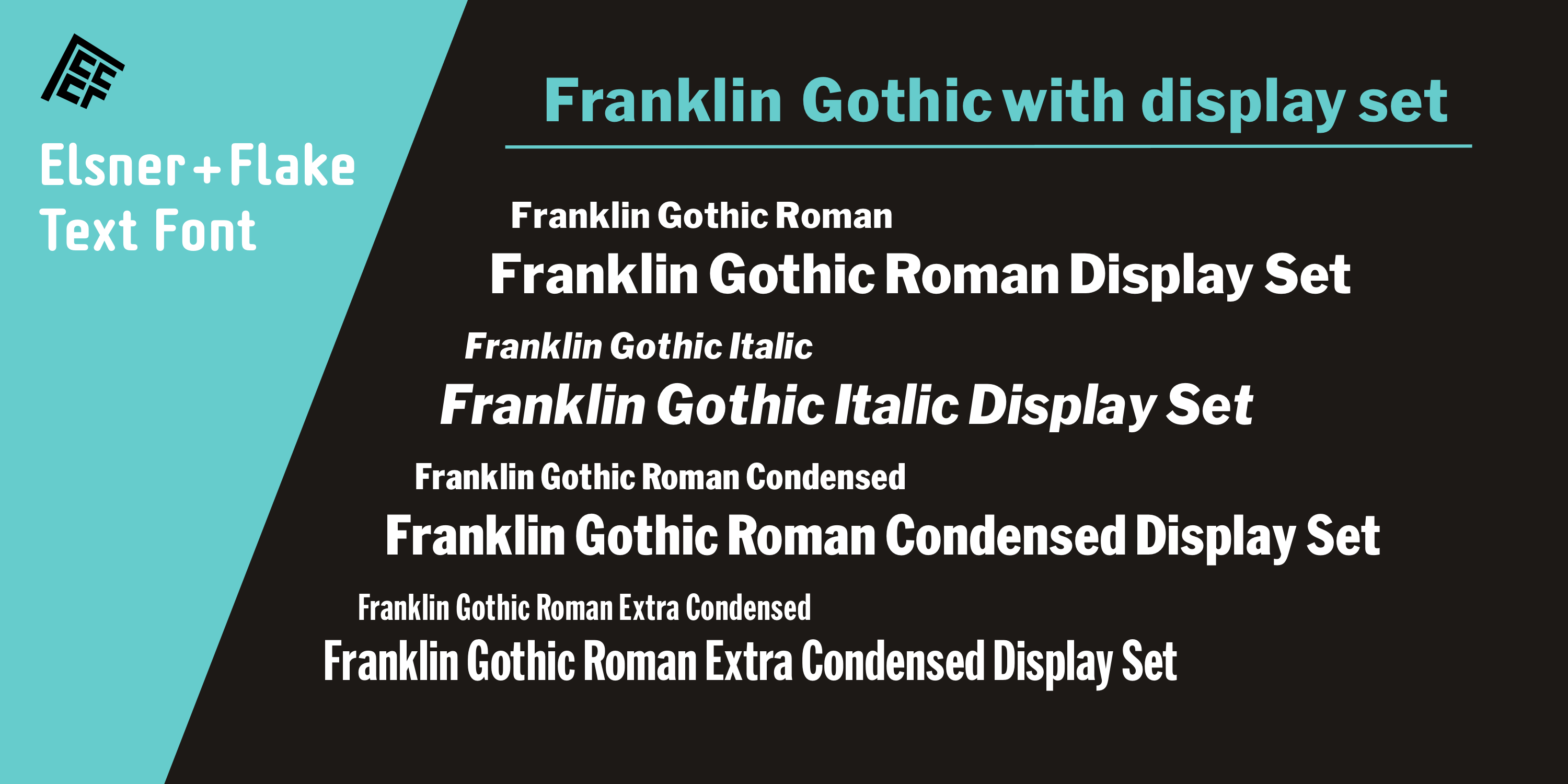
The EF Franklin Gothic Font is a powerful and enduring sans-serif typeface, a classic American grotesque originally designed by Morris Fuller Benton in 1902. It's characterized by its robust, condensed forms, high x-height, and an unmistakable sense of strength and directness. Imagine its commanding presence dominating headlines in newspapers and magazines, adding a strong, reliable feel to corporate branding, or providing the backbone for impactful advertising campaigns and public information signage. Its excellent legibility, even in challenging environments, makes it a versatile choice for everything from sports broadcasting and product packaging to academic publications and government documents. EF Franklin Gothic Font delivers with its unwavering quality, ensuring your message is conveyed with supreme clarity and a timeless, authoritative aesthetic.
What makes EF Franklin Gothic Font so exciting is its historical significance and its enduring ability to cut through visual clutter with a no-nonsense attitude. Unlike many sans-serifs, it possesses a unique personality, particularly in its slightly irregular curves and strong vertical stress, which gives it a powerful, almost muscular feel. The "EF" often indicates an extended or enhanced version, potentially including a broader character set or optimized features for digital use. It’s more than just a typeface; it’s a design workhorse that consistently delivers clarity, efficiency, and a timeless modern aesthetic that remains fresh over time. Designers value its robust family, allowing for precise typographic control and the creation of highly organized and visually appealing layouts. For designers seeking clarity and impact, the EF Franklin Gothic Font Free Download is an invaluable resource.
The EF Franklin Gothic Font family is typically comprehensive, offering a vast array of weights and widths to provide extensive typographic control. Beyond the core EF Franklin Gothic Regular, the family typically includes a rich spectrum from lighter weights like EF Franklin Gothic Light through EF Franklin Gothic Book, EF Franklin Gothic Medium, EF Franklin Gothic Bold, and up to heavy weights like EF Franklin Gothic Extra Condensed and EF Franklin Gothic Heavy. Each of these weights usually comes with corresponding EF Franklin Gothic Italic versions. Furthermore, the family often boasts various widths, including EF Franklin Gothic Condensed, EF Franklin Gothic Compressed, and EF Franklin Gothic Extra Compressed, each available in multiple weights and italics. This extensive range of family members ensures that designers can create intricate and harmonious typographic systems, maintaining a consistent, powerful, and universally appealing aesthetic across all elements of a project.